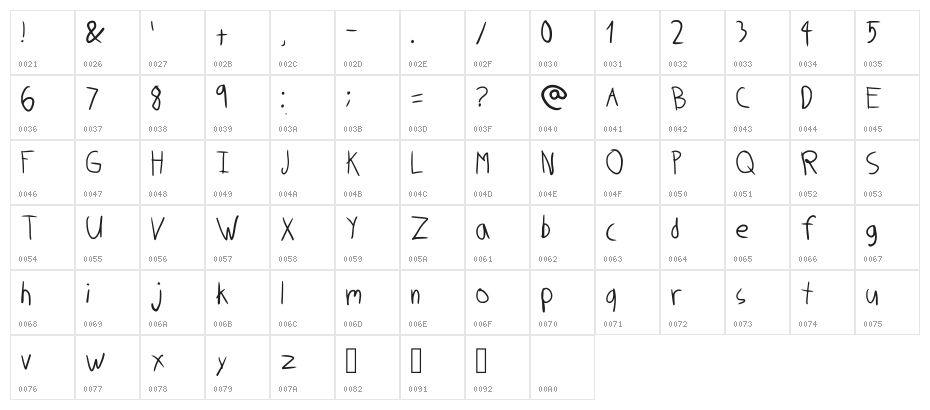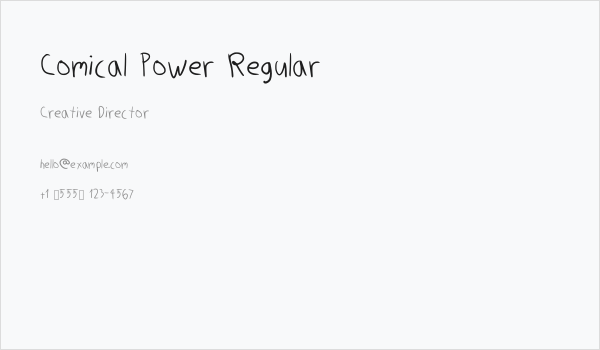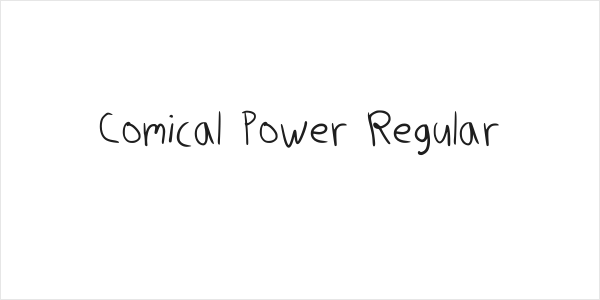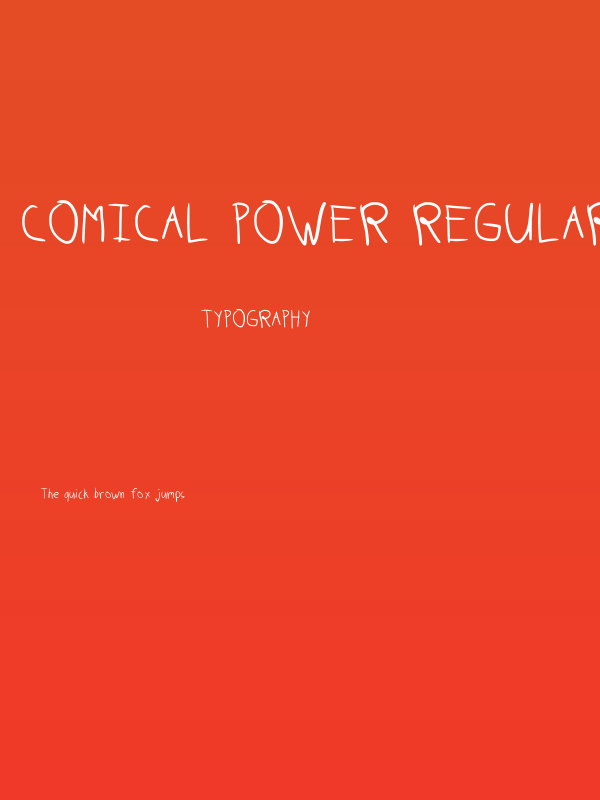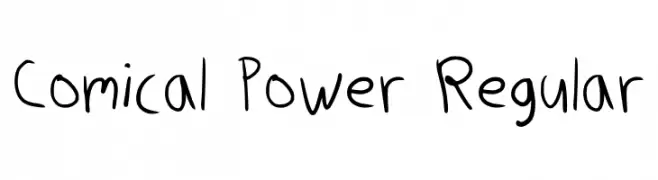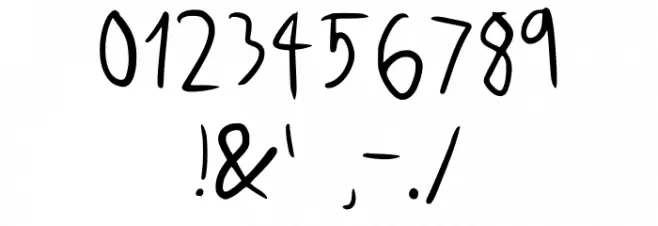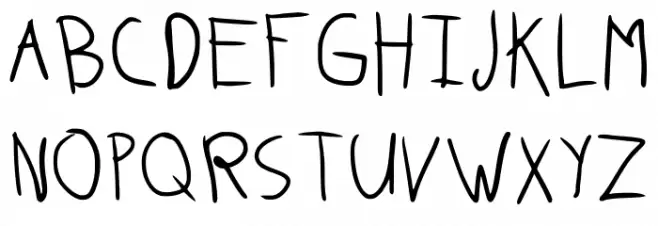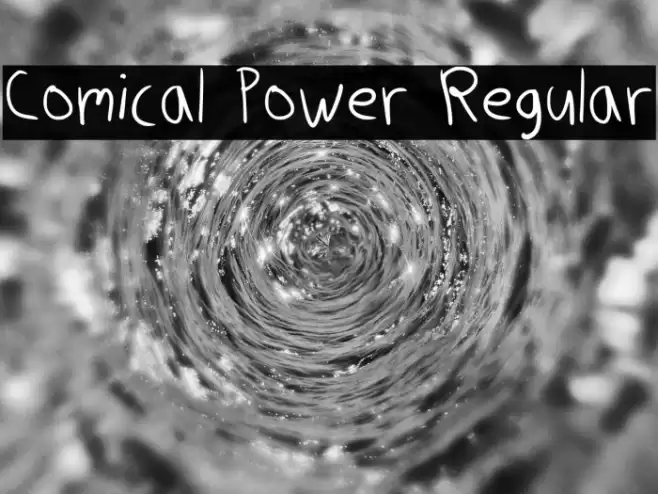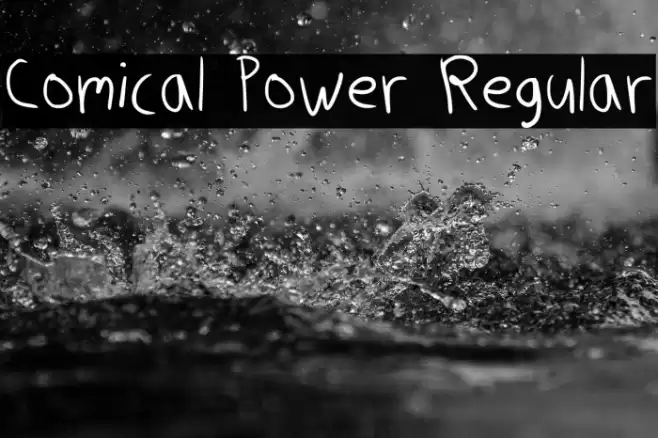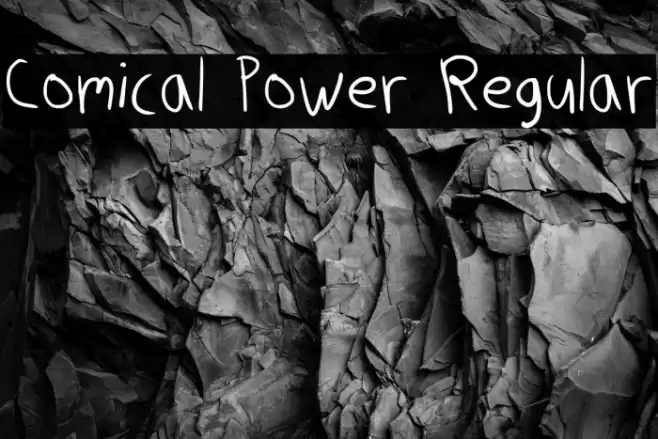
Comical Power Regular Font
Comical Power Regular Description
A playful, handwritten style font with irregular, casual strokes that resemble a child's handwriting.
| Overall Style | Casual, Playful, Handwritten |
| Use Case | Children's books, casual branding, invitations, creative projects. |